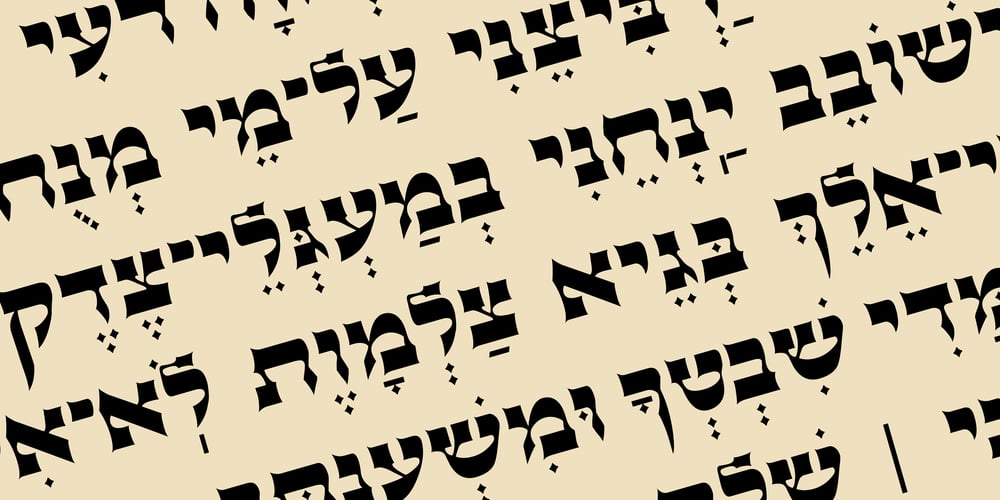
Hebrew Efraim Std
Hebrew Efraim Std font
Hebrew Efraim Std Font Family was designed by Sami Artur Mandelbaum and published by Samtype. Hebrew Efraim Std contains 5 styles and family package options. Beautiful font, good for posters and small books and folders.This is a complete font with all Nikud and also shevana, kamatz katan, dagesh hazak, and holam chaser.